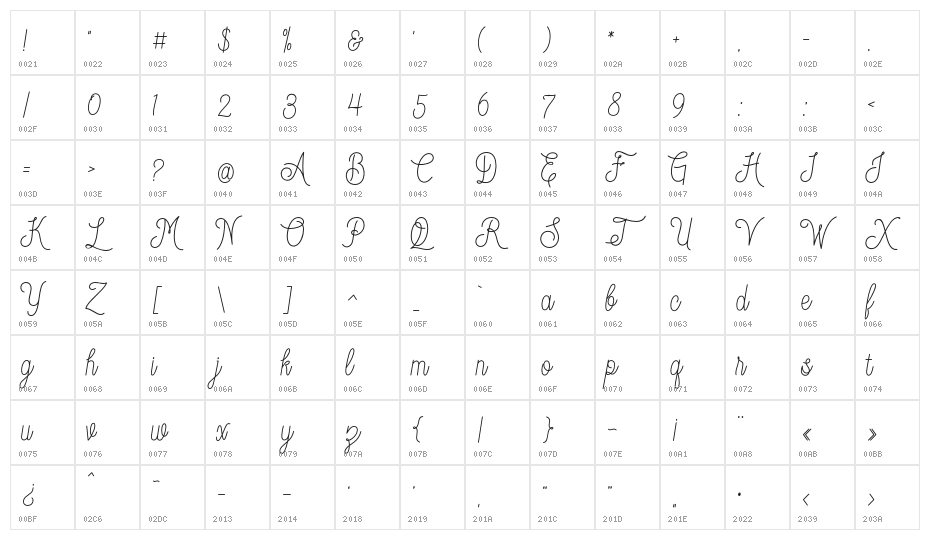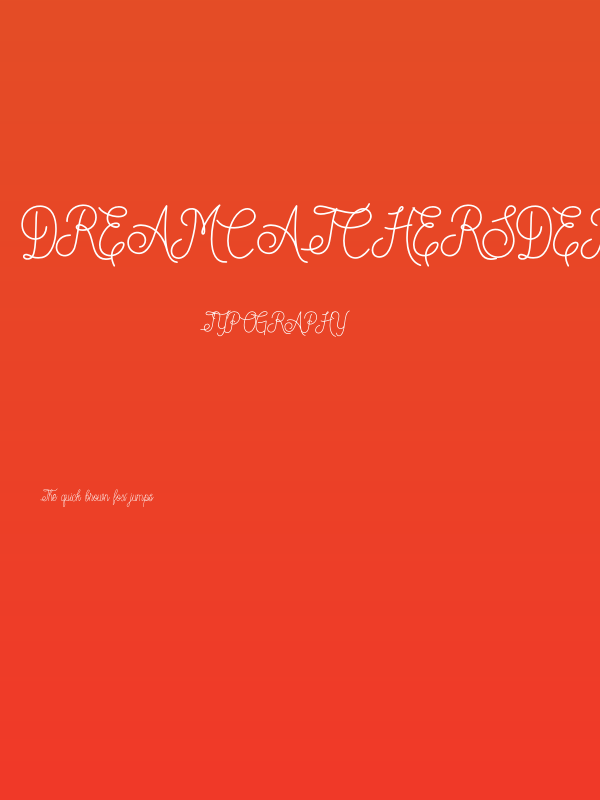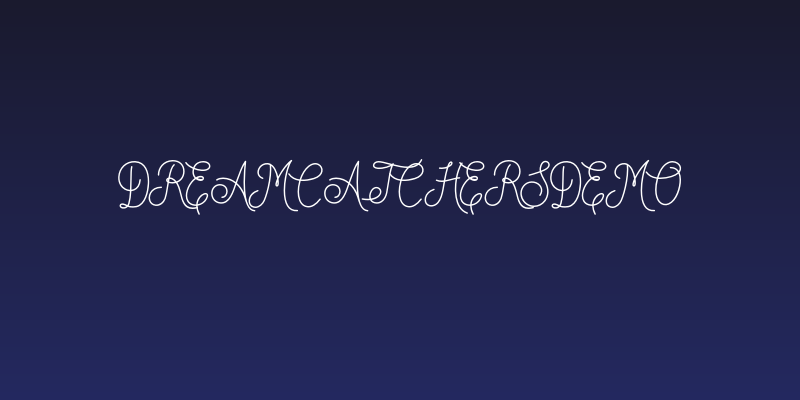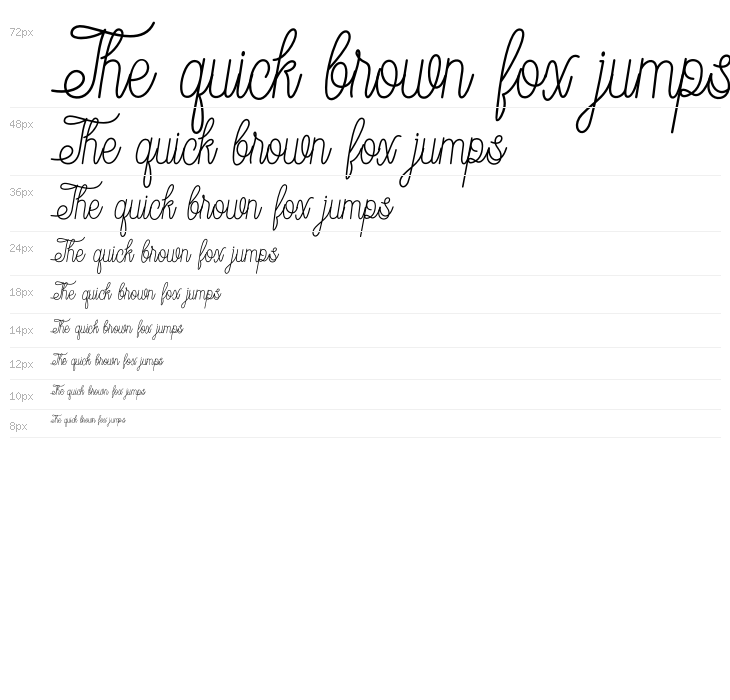
DreamCatchersDemo Font
DreamCatchersDemo Description
This font features an elegant and flowing script style, characterized by its smooth, continuous strokes and graceful curves. The uppercase letters are ornate, with intricate loops and swirls that give a sense of sophistication and fluidity. The lowercase letters maintain a consistent flow, enhancing readability while preserving the decorative nature of the script. Numbers and special characters are crafted with the same attention to detail, ensuring a cohesive appearance across all glyphs. This font exudes a sense of elegance and charm, making it suitable for projects that require a touch of class and refinement.
| Proposed Projects | Ideal for wedding invitations, elegant branding, greeting cards, and decorative signage. |